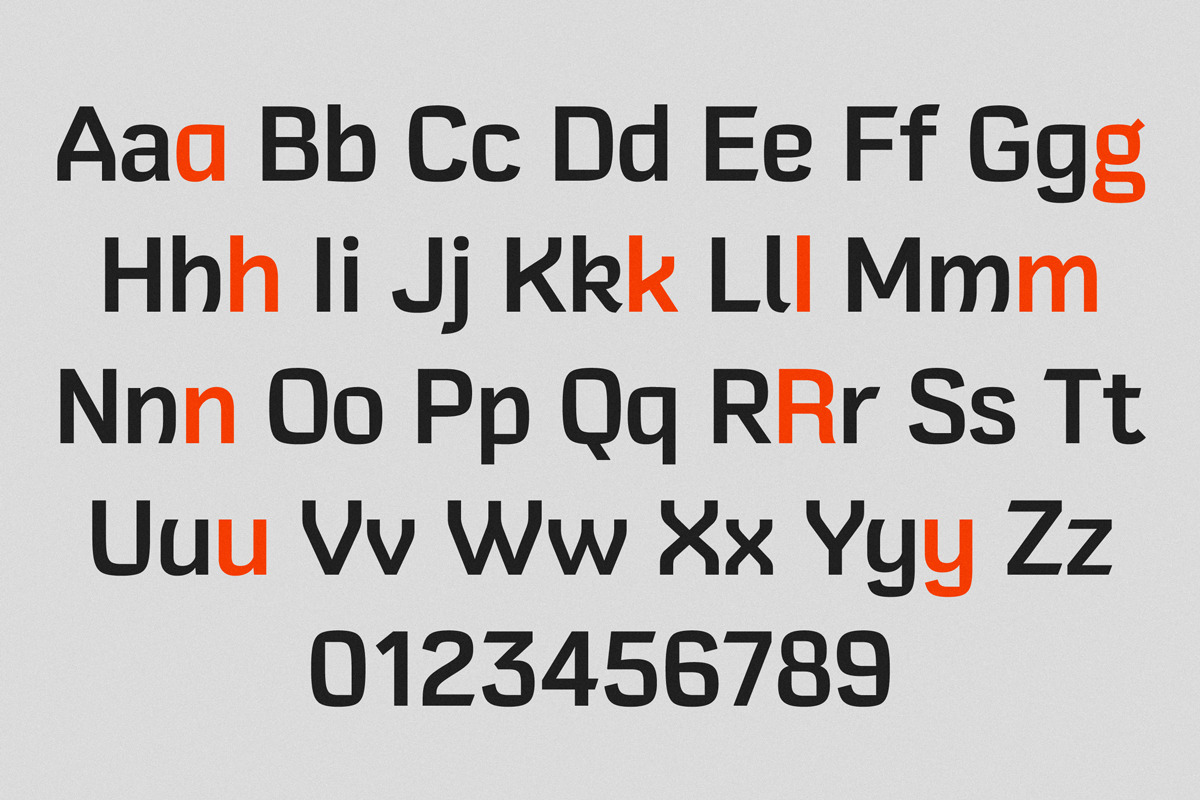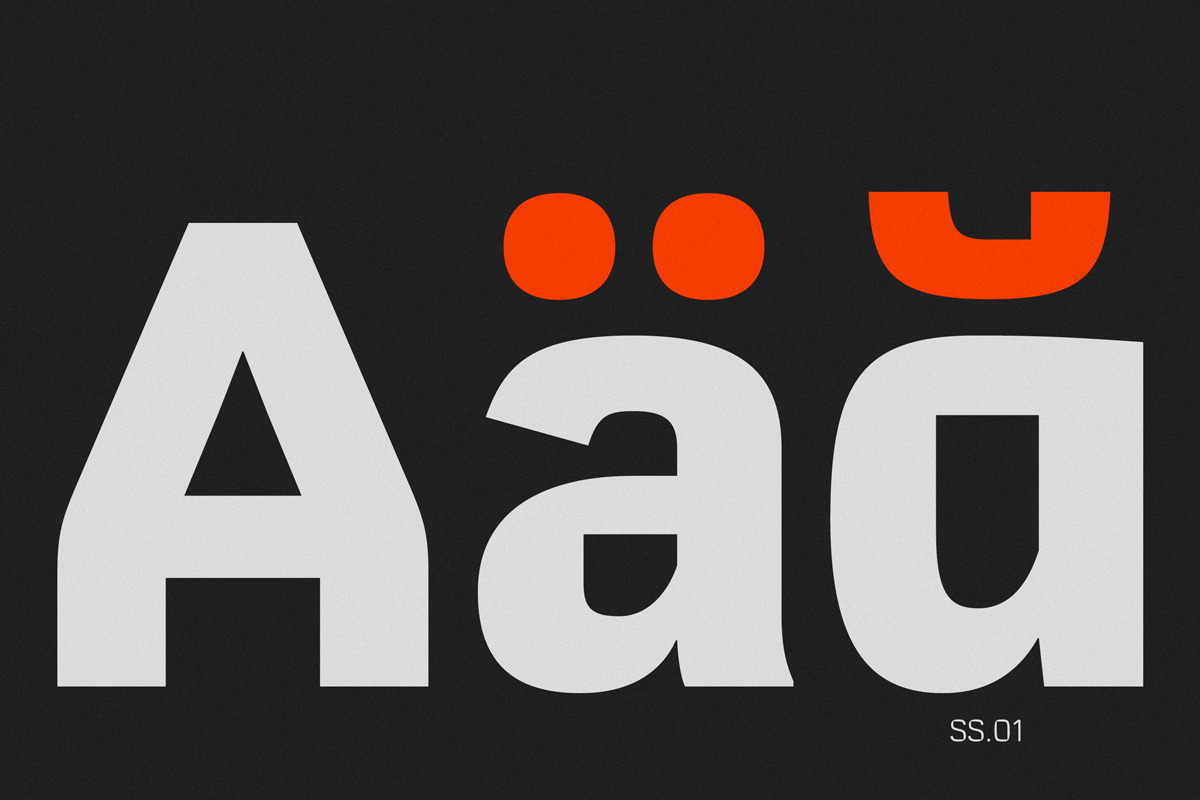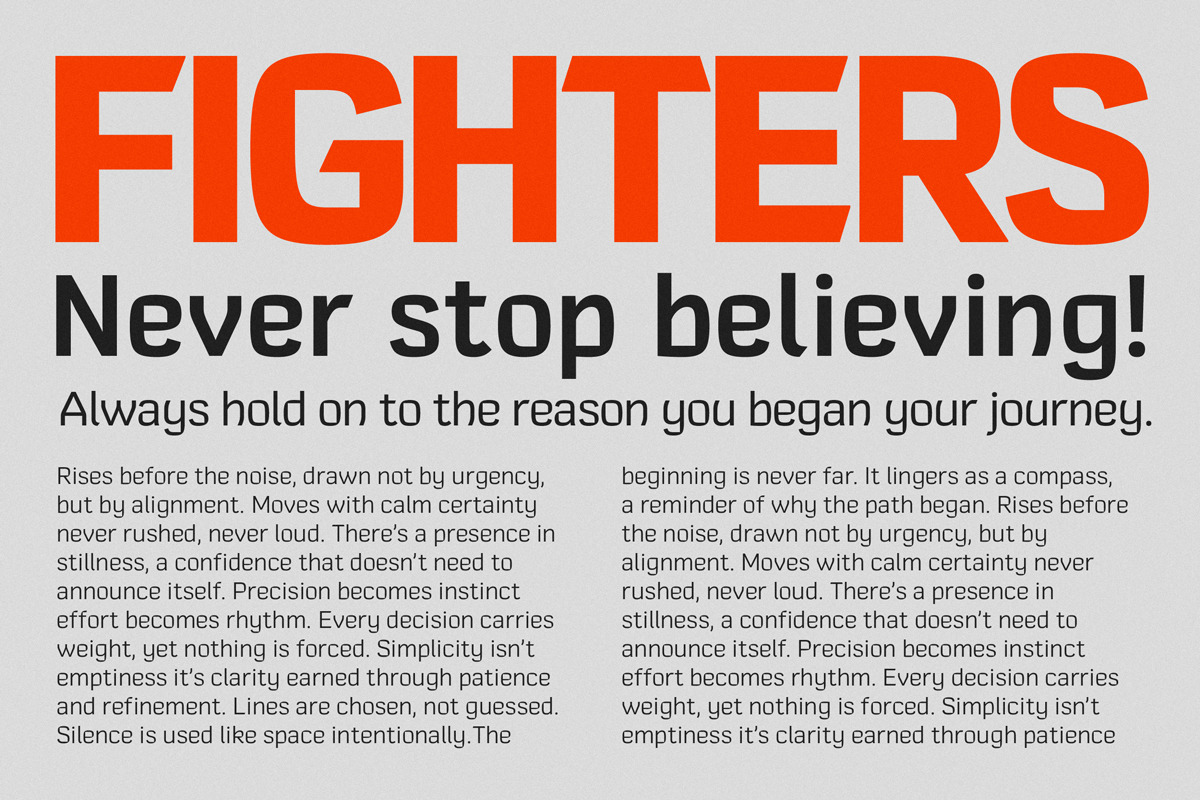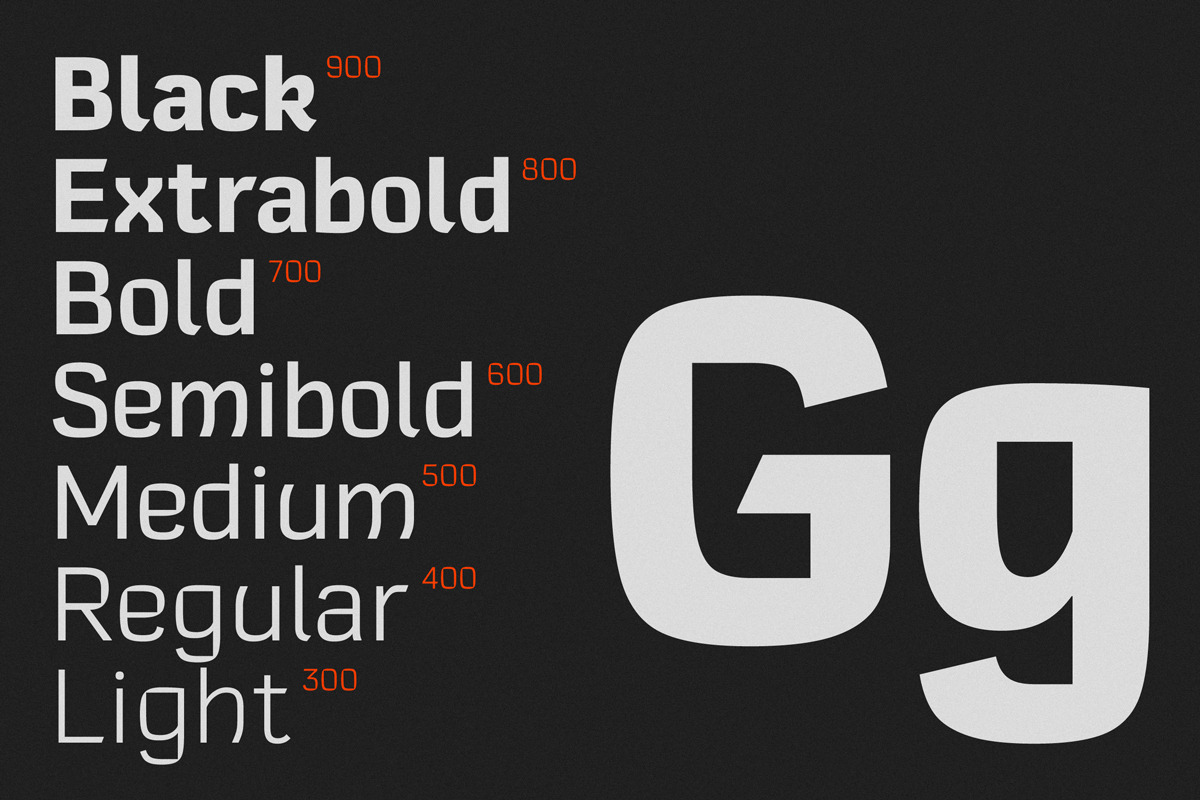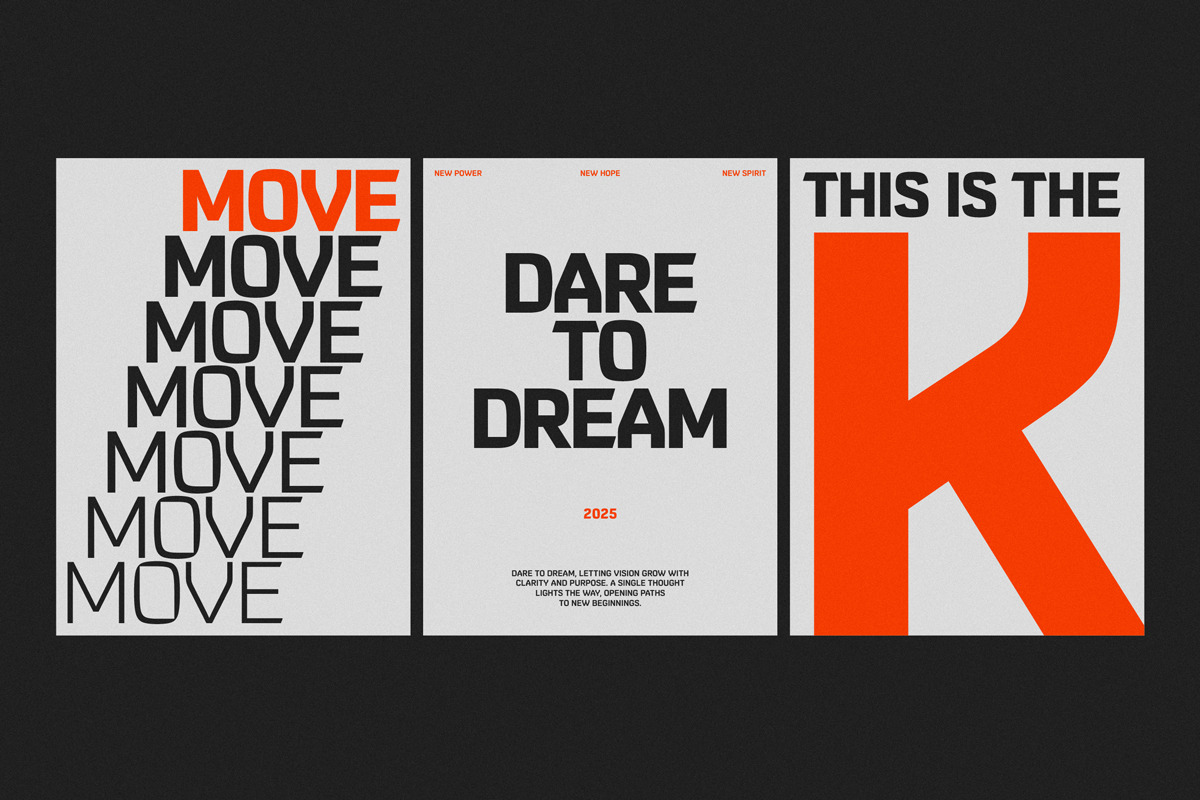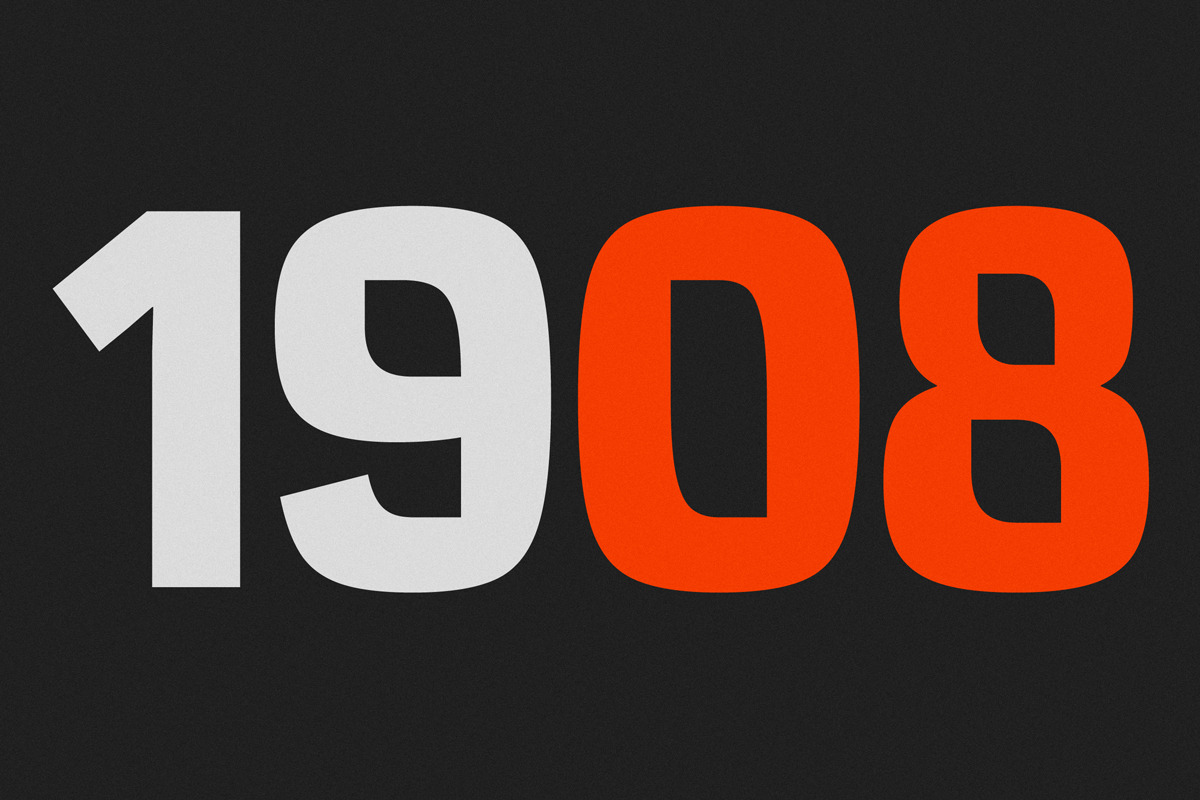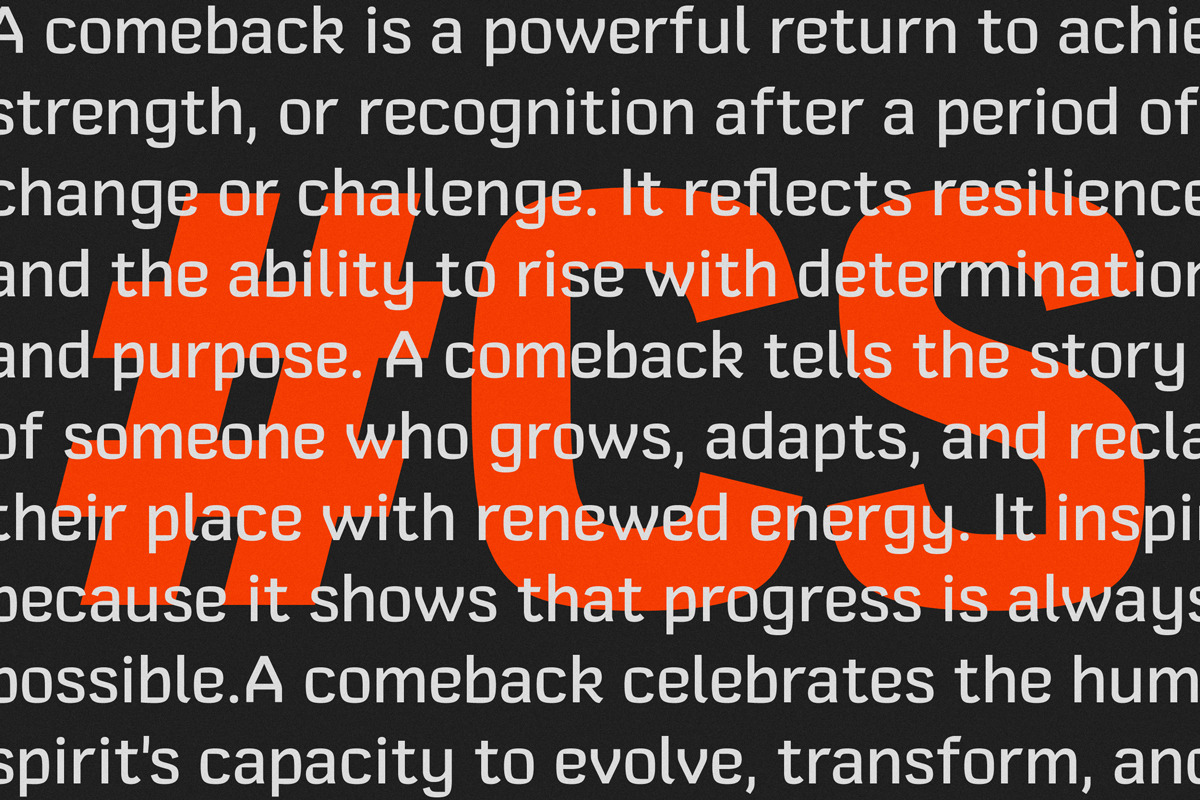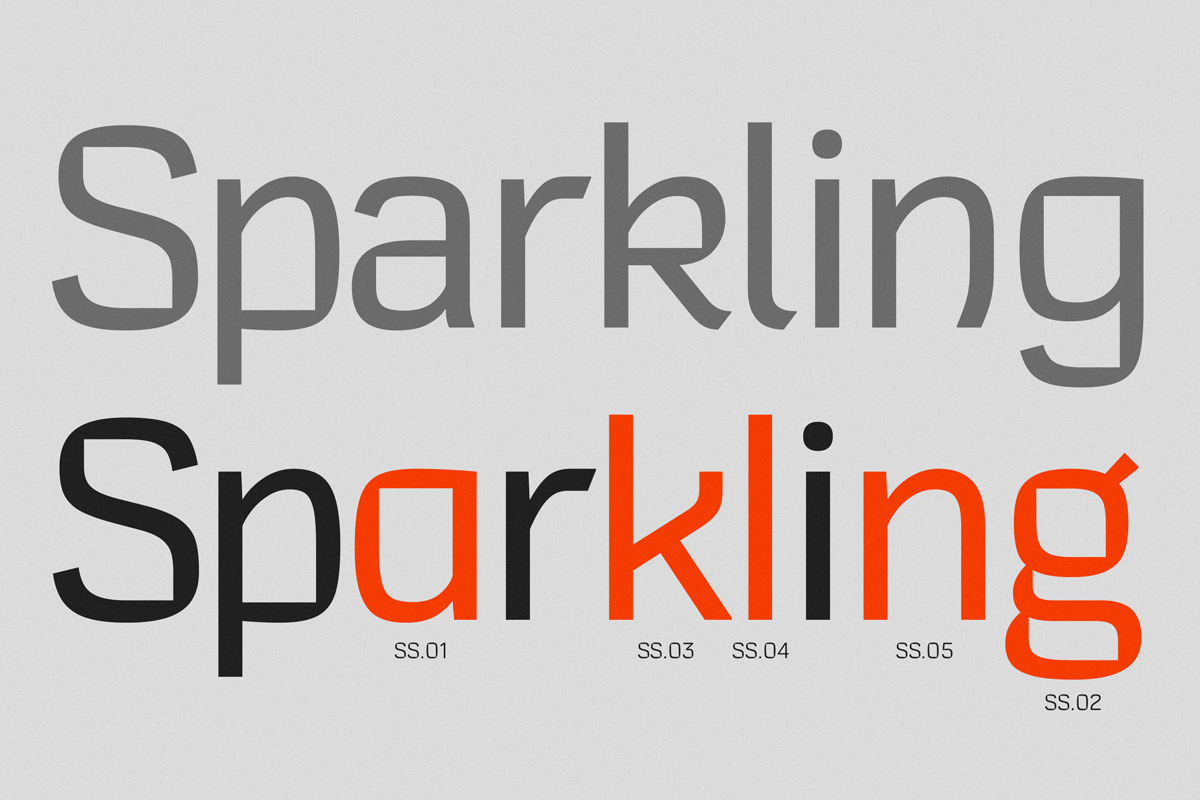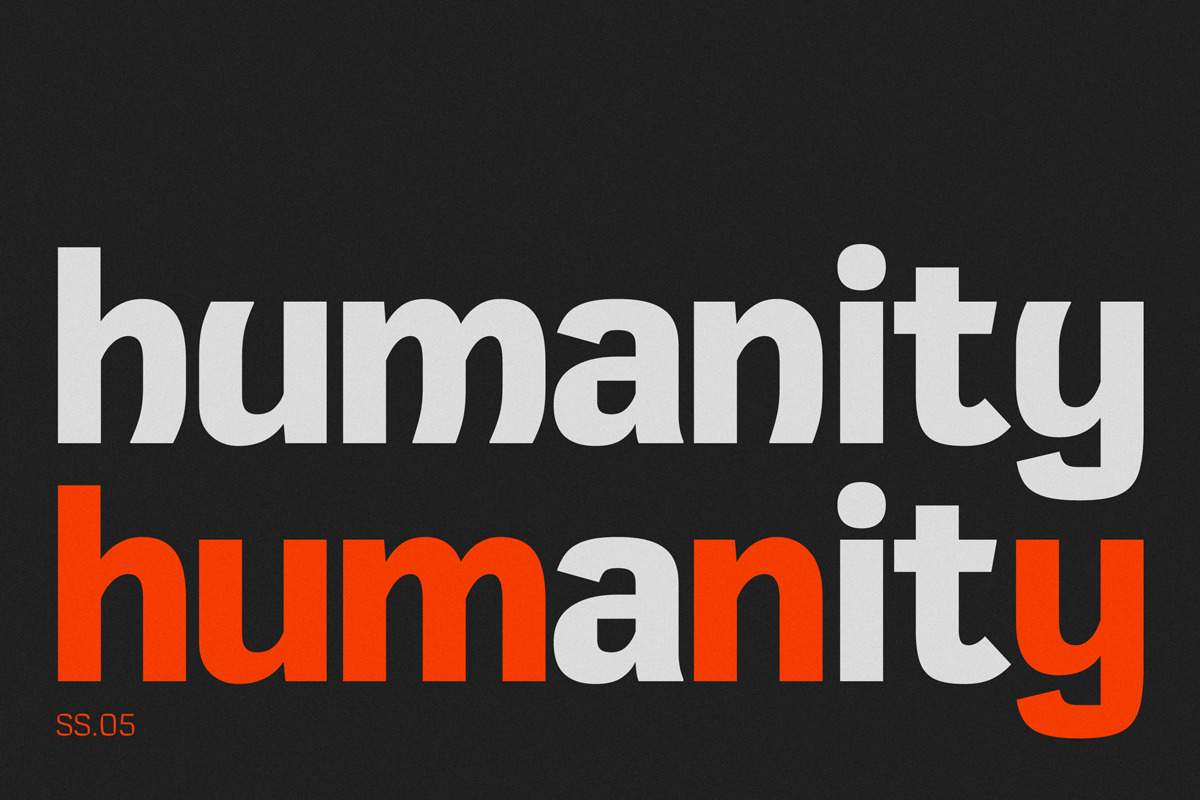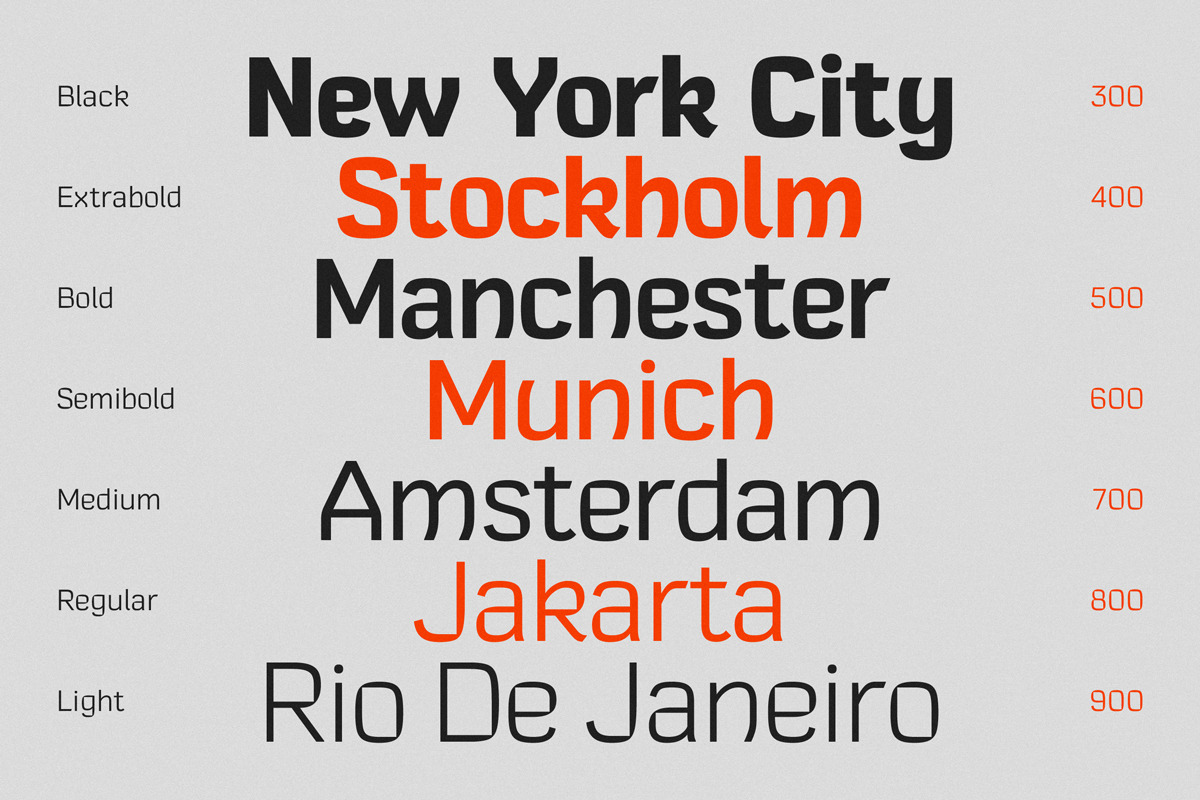
Comeback Sans
Comeback Sans: A Dynamic Humanist Typeface
Rooted in rich calligraphic tradition, Comeback Sans offers a blend of expressive curves and clean structure that embodies both human touch and modernity. With each character, it articulates a voice of purpose and strength, making it well-suited for conveying impactful messages.
The font family, with its seven elegantly crafted styles and variable font option, presents a strong personality ideal for branding, identity systems, and visual storytelling. Its harmonious design is a testament to contemporary aesthetic refinement while maintaining its functional versatility.